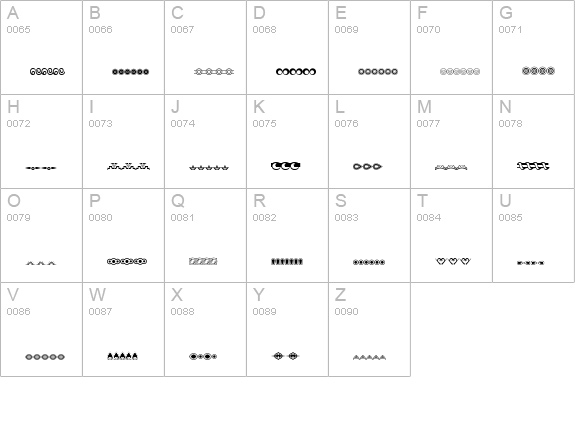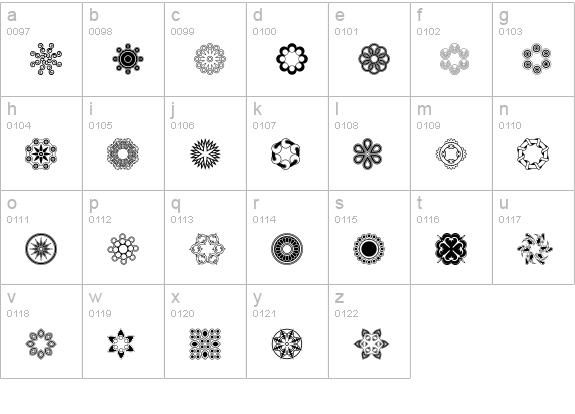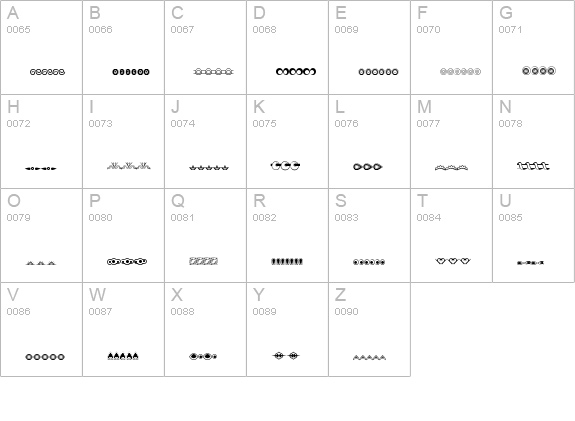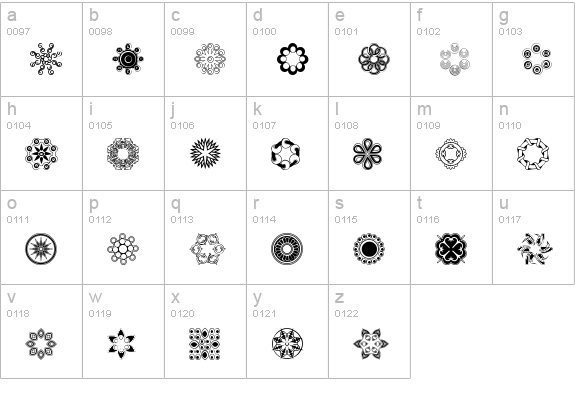
whirlygigs Font Details
Introducing Whirlygigs Font, a whimsical and playful typeface that will add a touch of fun to your designs. This font features charming swirls and loops, creating a delightful and eye-catching appearance. Perfect for projects that require a lighthearted and cheerful vibe, Whirlygigs Font is sure to bring a smile to your audience. The best part is, Whirlygigs Font is available for free download at FontsMarket.com. Simply visit the website to access this delightful font and incorporate its unique charm into your creative projects. Whether you're designing invitations, posters, or social media graphics, Whirlygigs Font will help you stand out with its playful and engaging style. Download it today and let your creativity take flight with Whirlygigs Font!